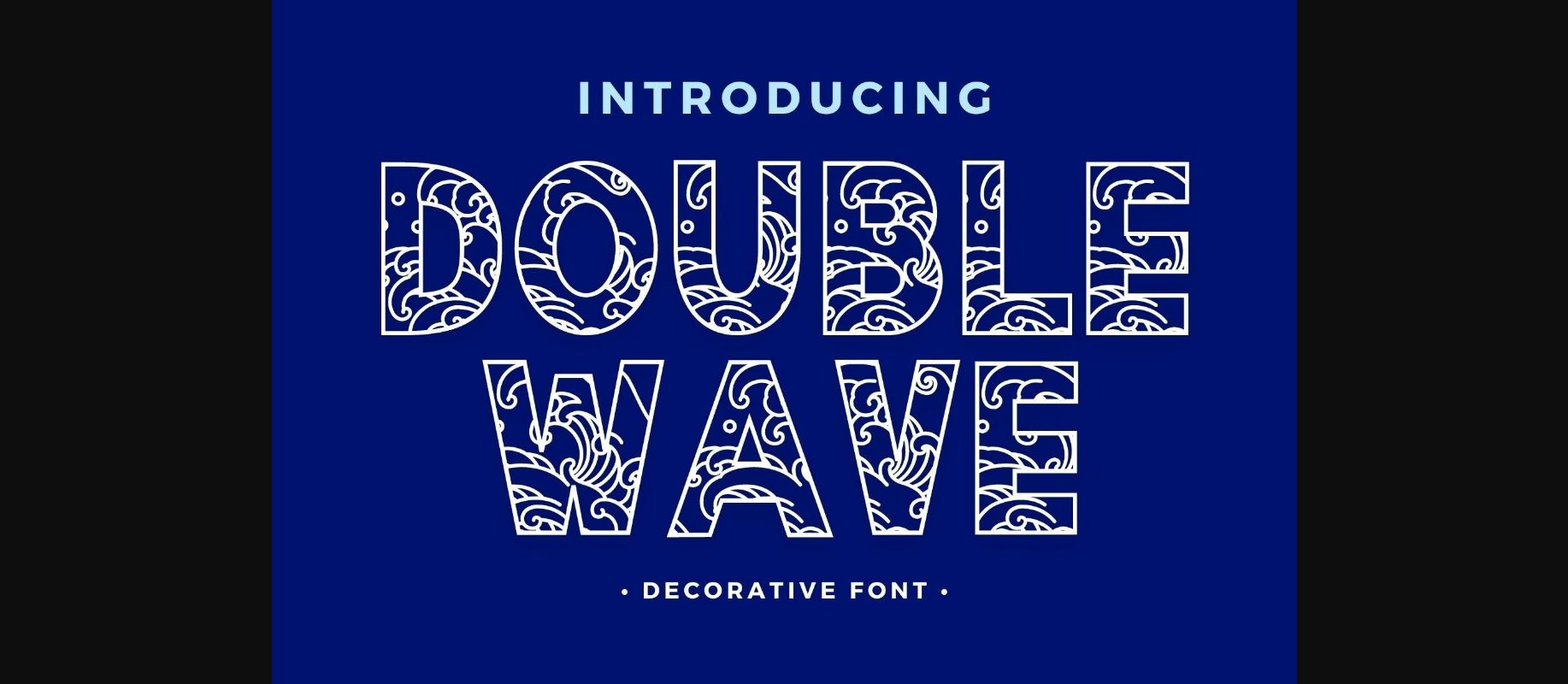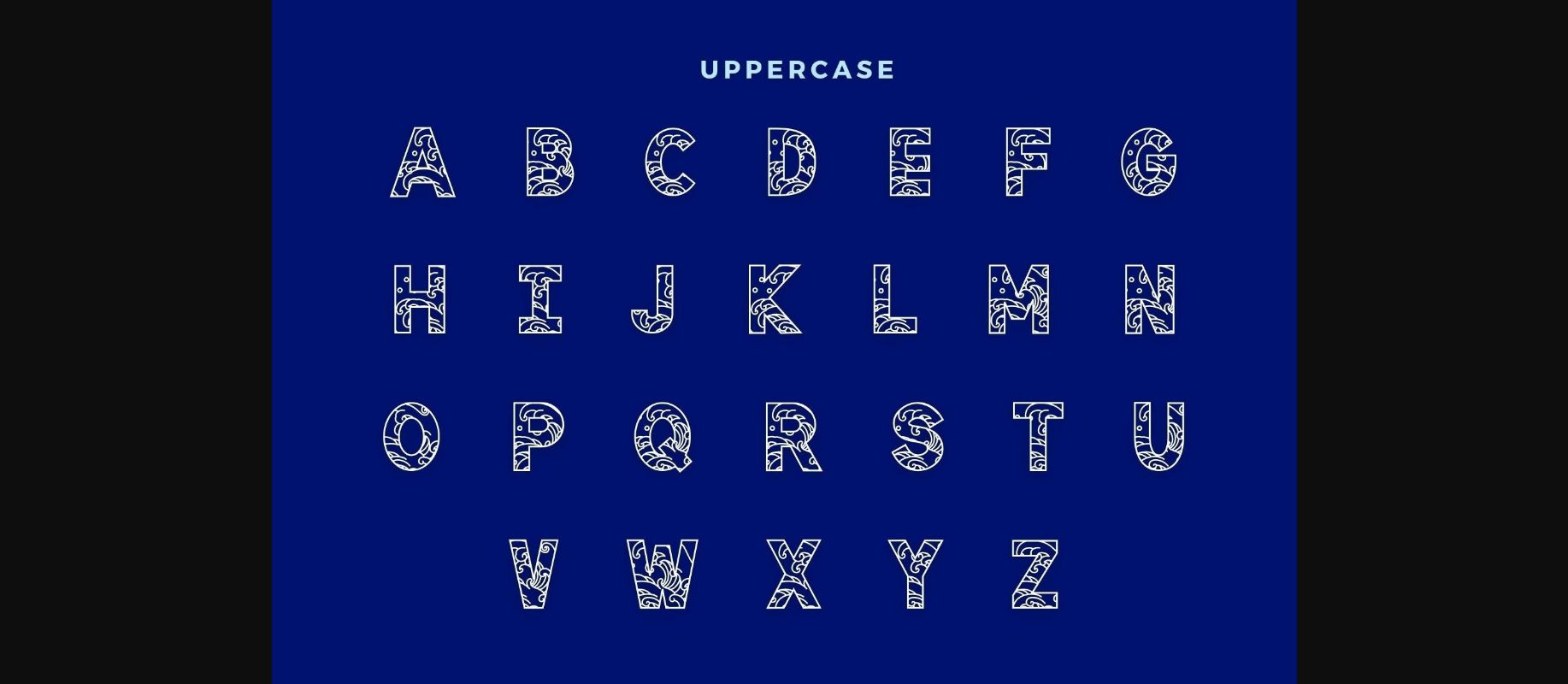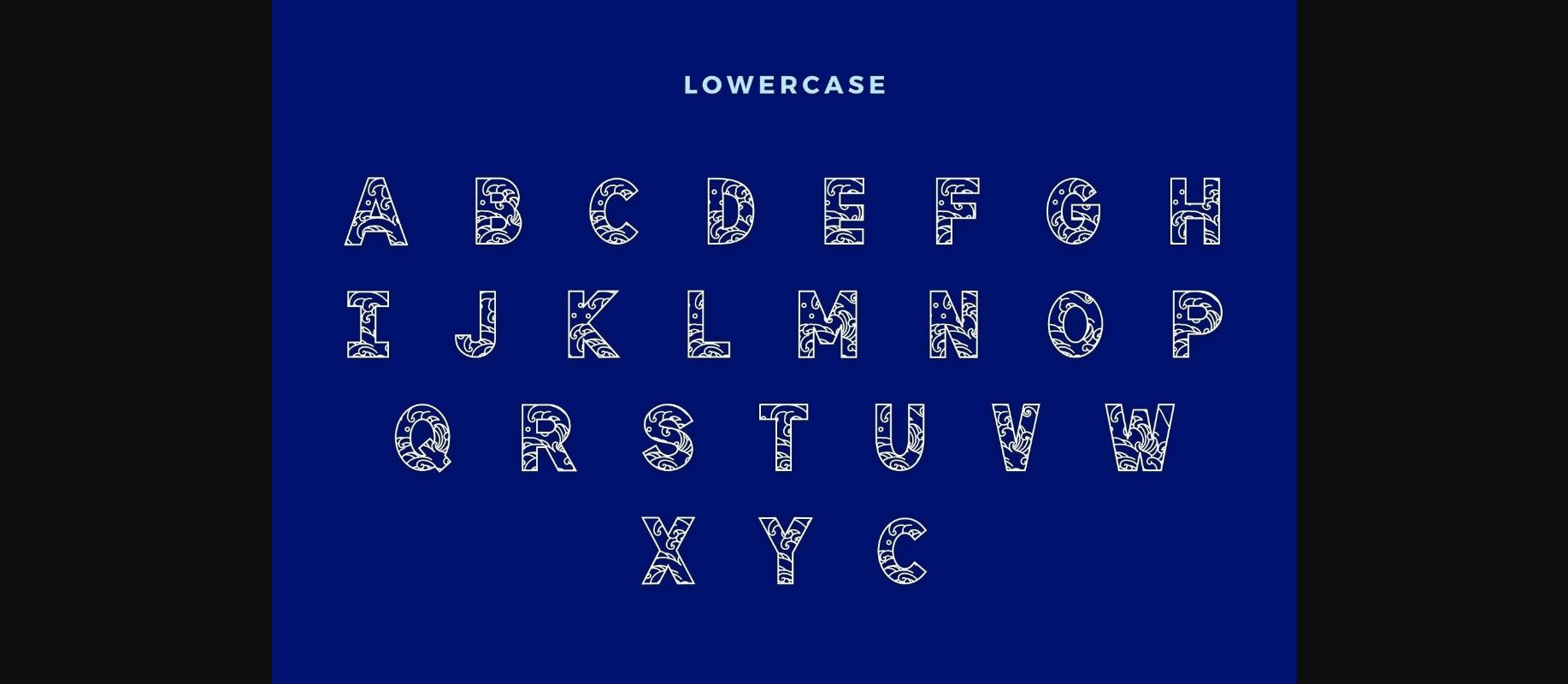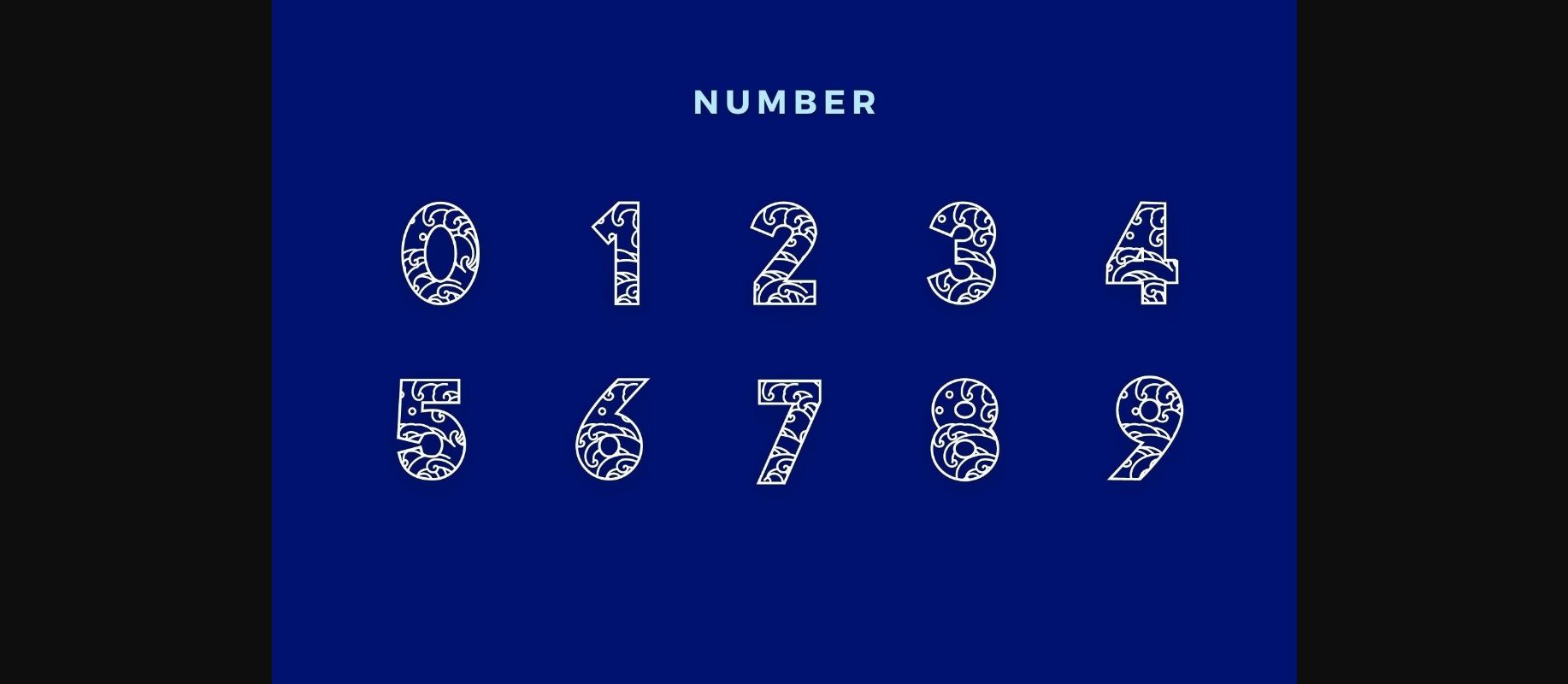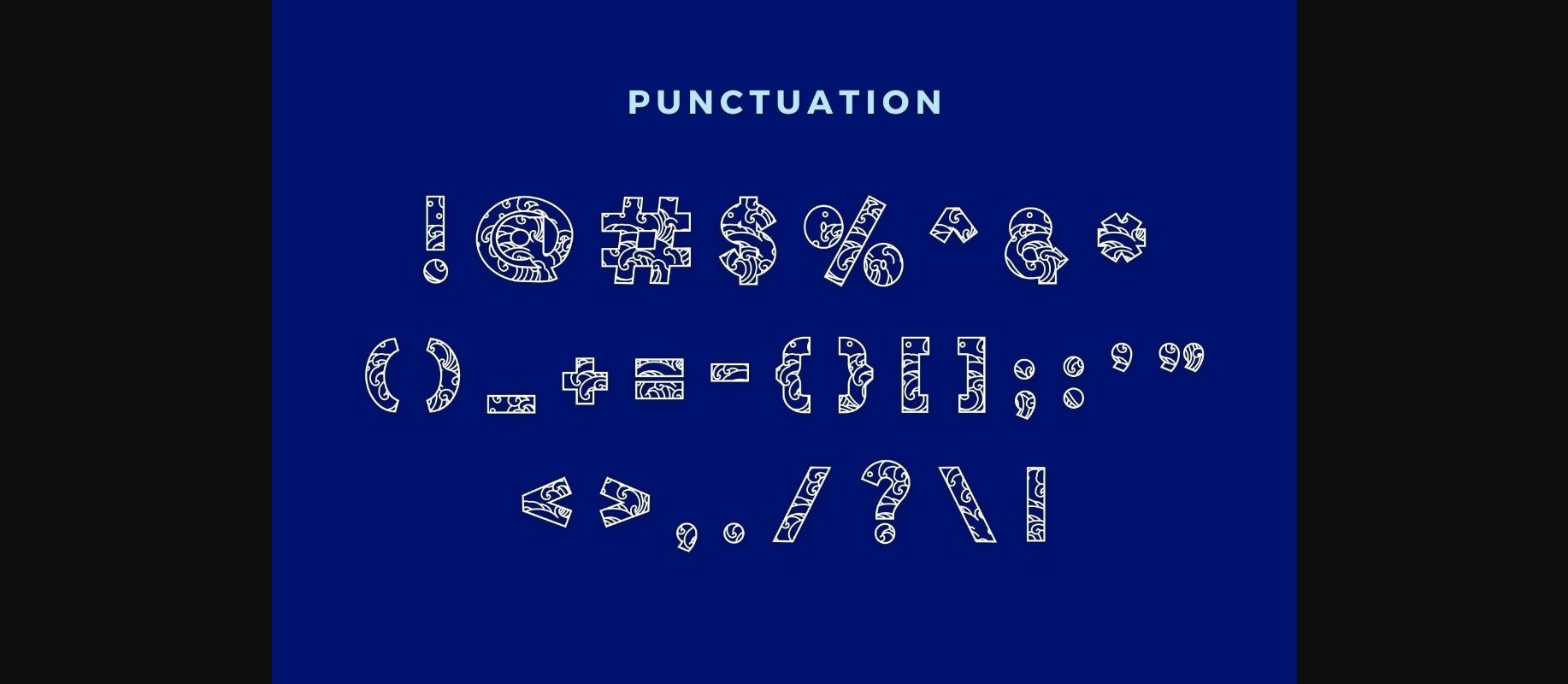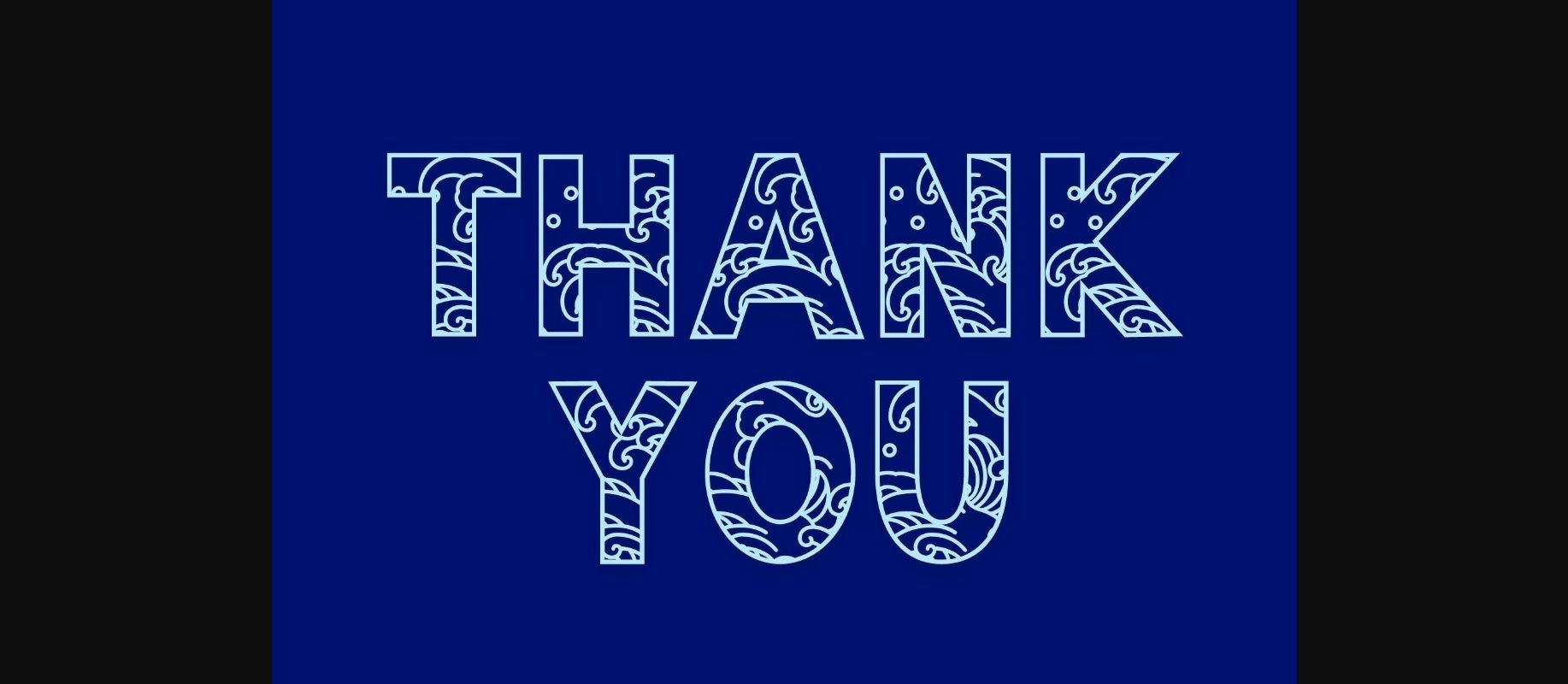
Double Wave Font
About Double Wave Font
Double Wave is a cute and funny decorative font. You can use it for various projects such as blog posts, logos, branding, ads, invitations, greeting cards, planners, photo albums, decorations, and much more. Add it to any of your designs, and enjoy the results!